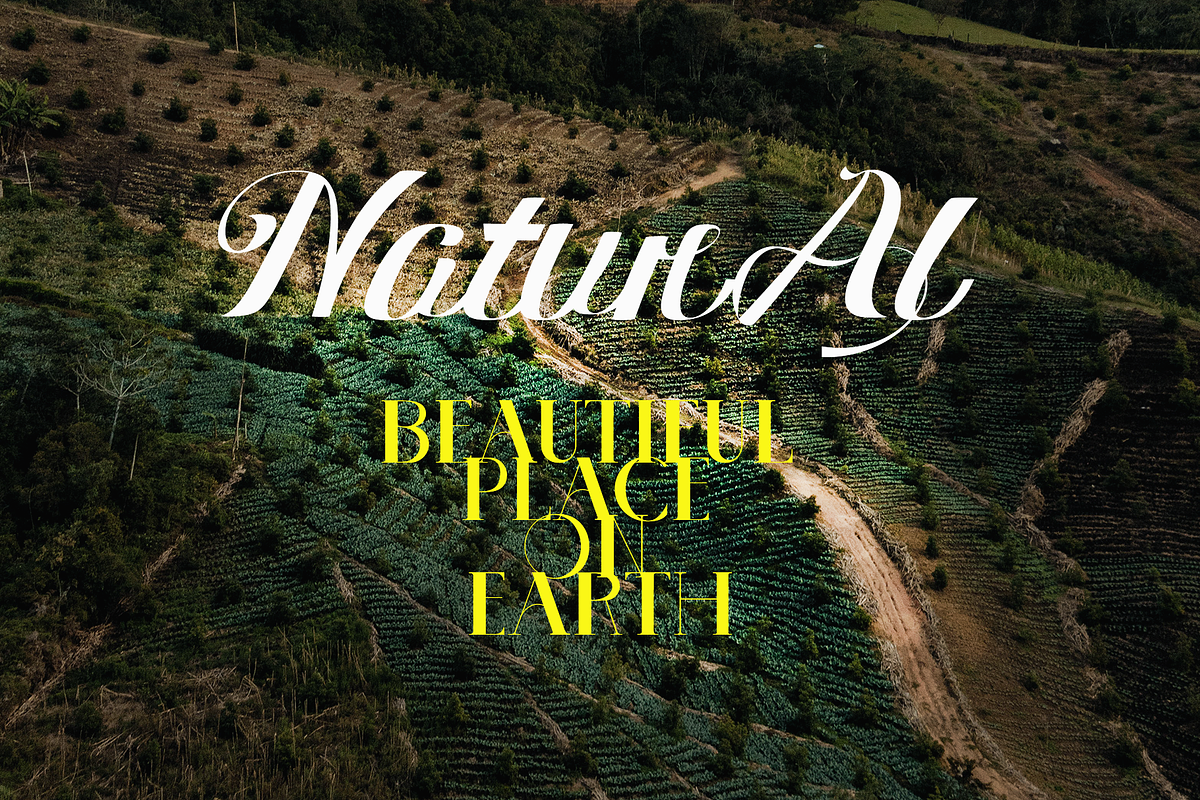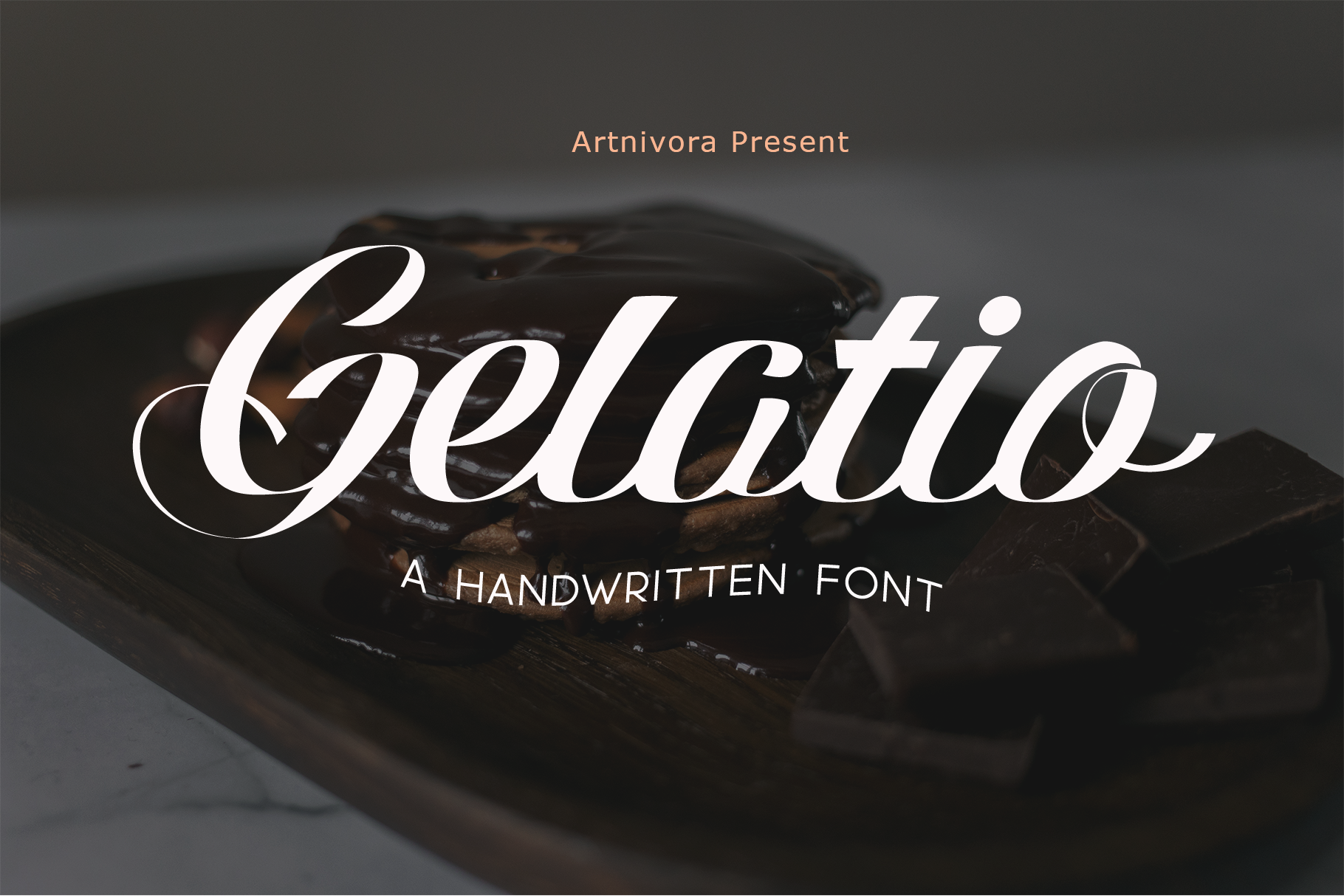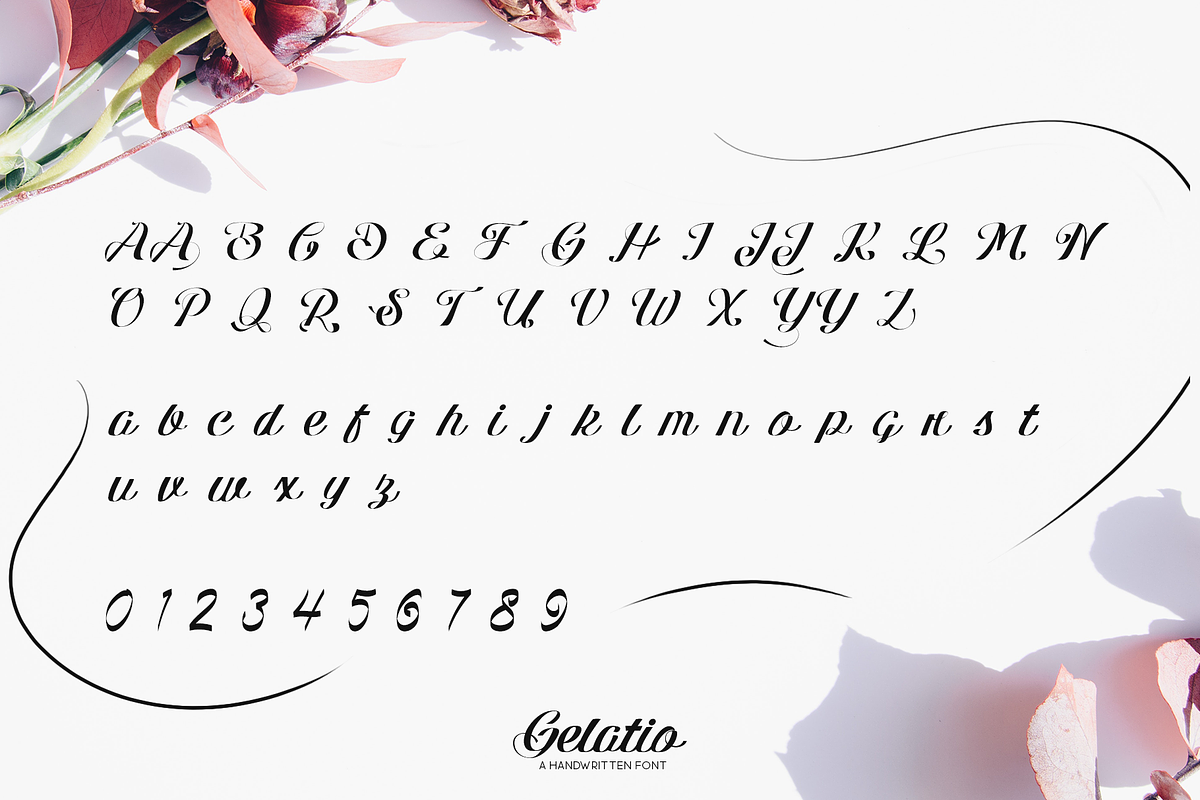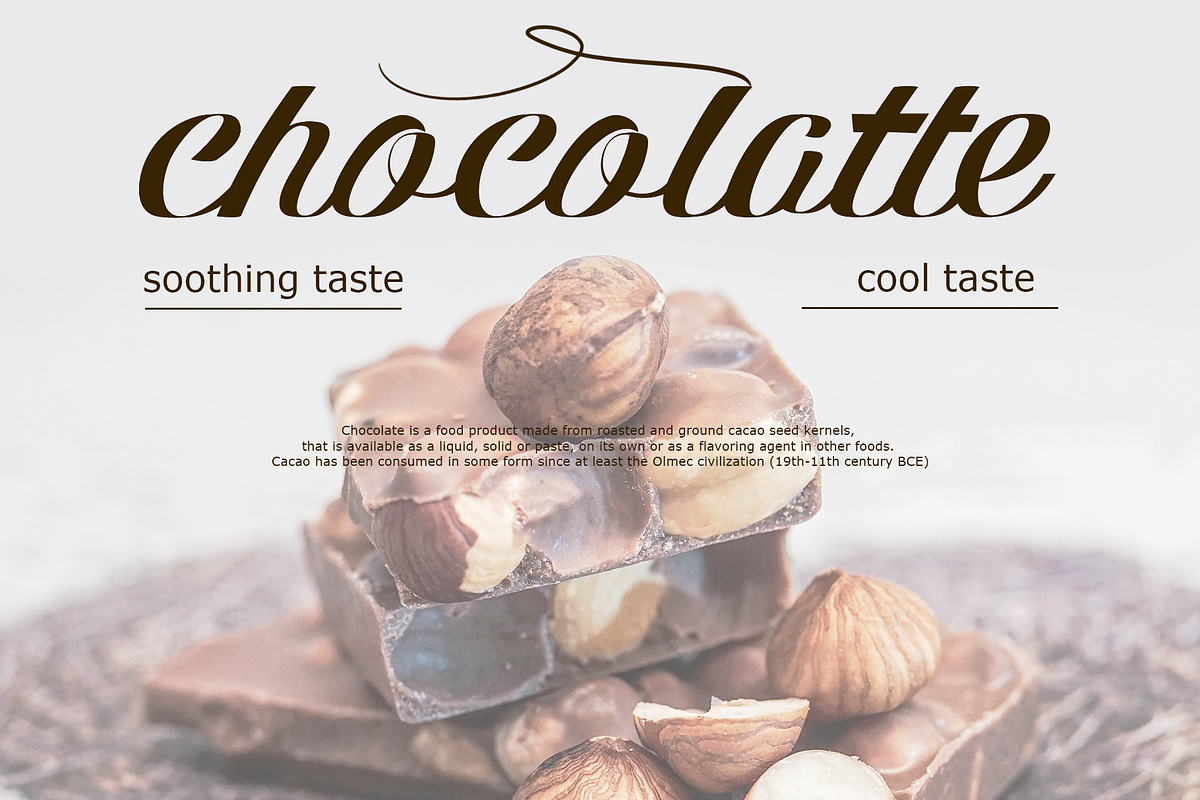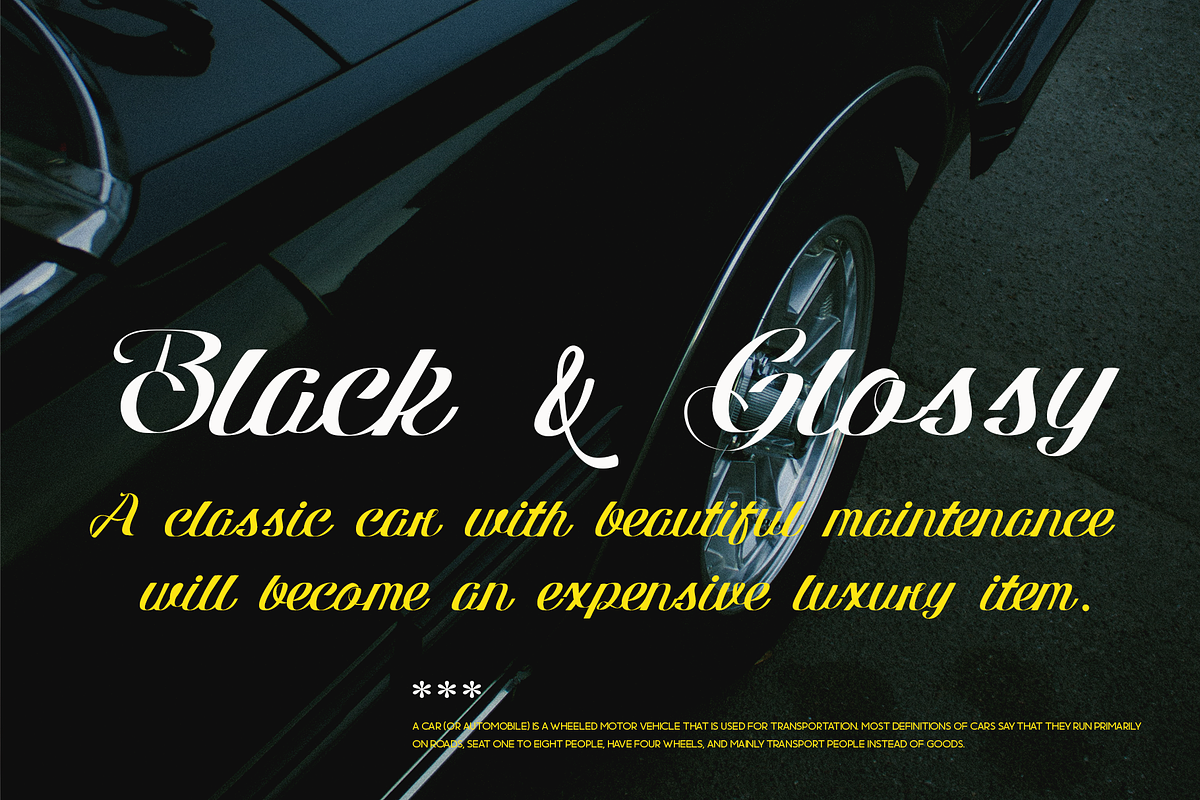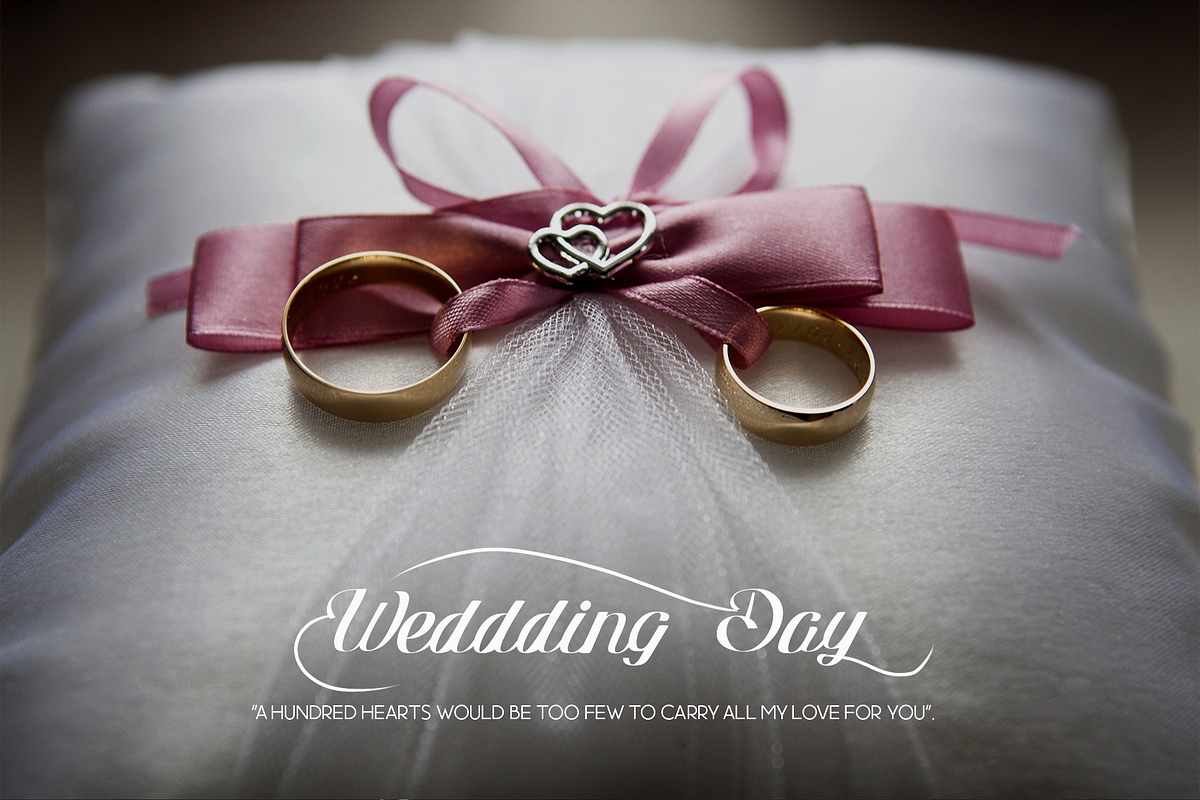
Gelatio - Script Font
Introducing Gelatio, a beauty and elegant script font. Its unique and lovely feel. So perfect for you who needs a typeface for logo designs, magazine, social media, brochure, and many more.